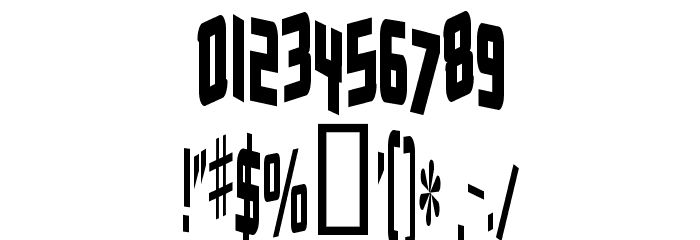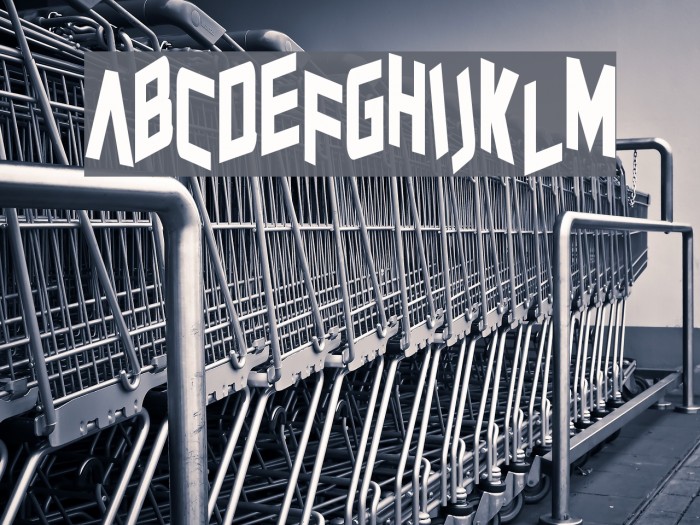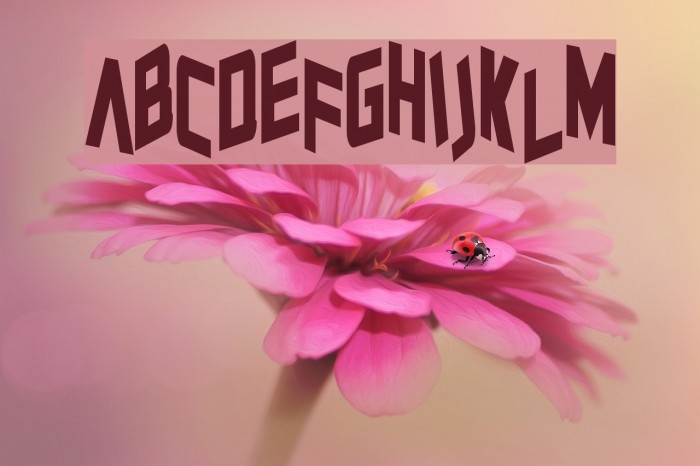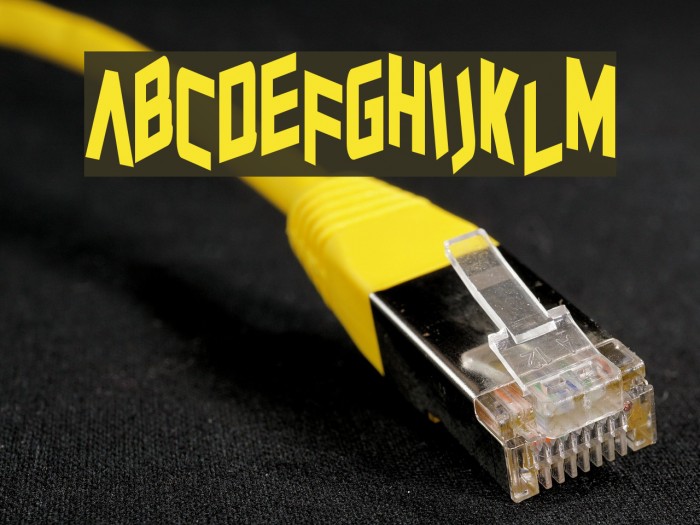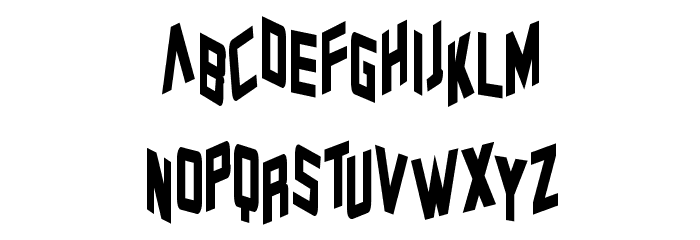
Zero Gravity Font
This font exhibits a bold and dynamic style with a futuristic and angular design. The characters are slightly slanted, giving a sense of movement and energy. The uppercase letters are particularly striking, with sharp edges and a geometric form that suggests a modern, tech-inspired aesthetic. The lowercase letters maintain this theme, offering a cohesive look across all text. Numbers and special characters are designed with the same angular and bold characteristics, ensuring consistency throughout. This font is ideal for projects that require a strong visual impact and a contemporary feel.
• Proposed Projects: Ideal for sci-fi themed posters, tech company logos, video game titles, and modern branding projects.
• Category: Decorative/Display
• Overall Style: Modern
• Use Case: Headlines, Logos, Posters